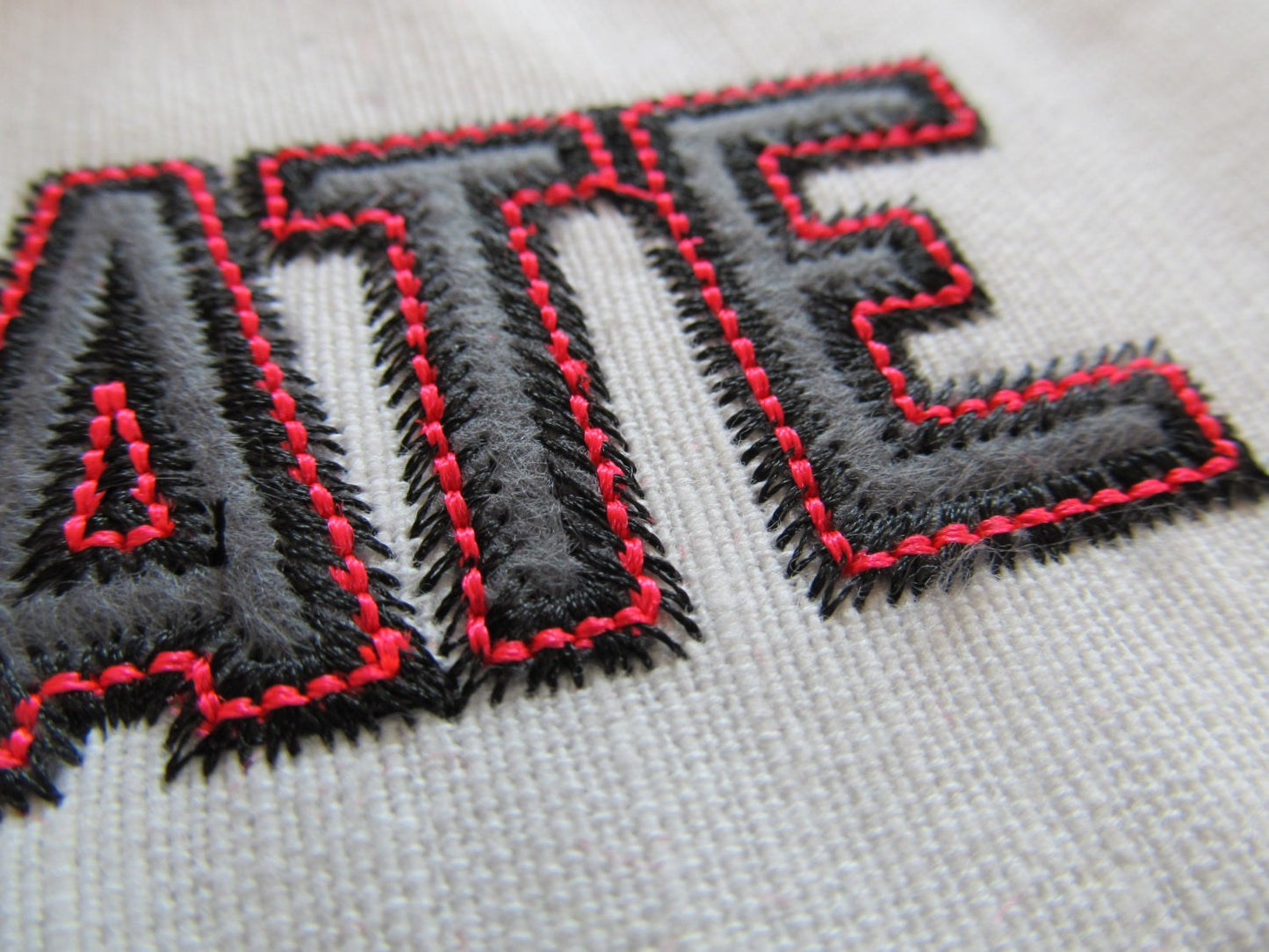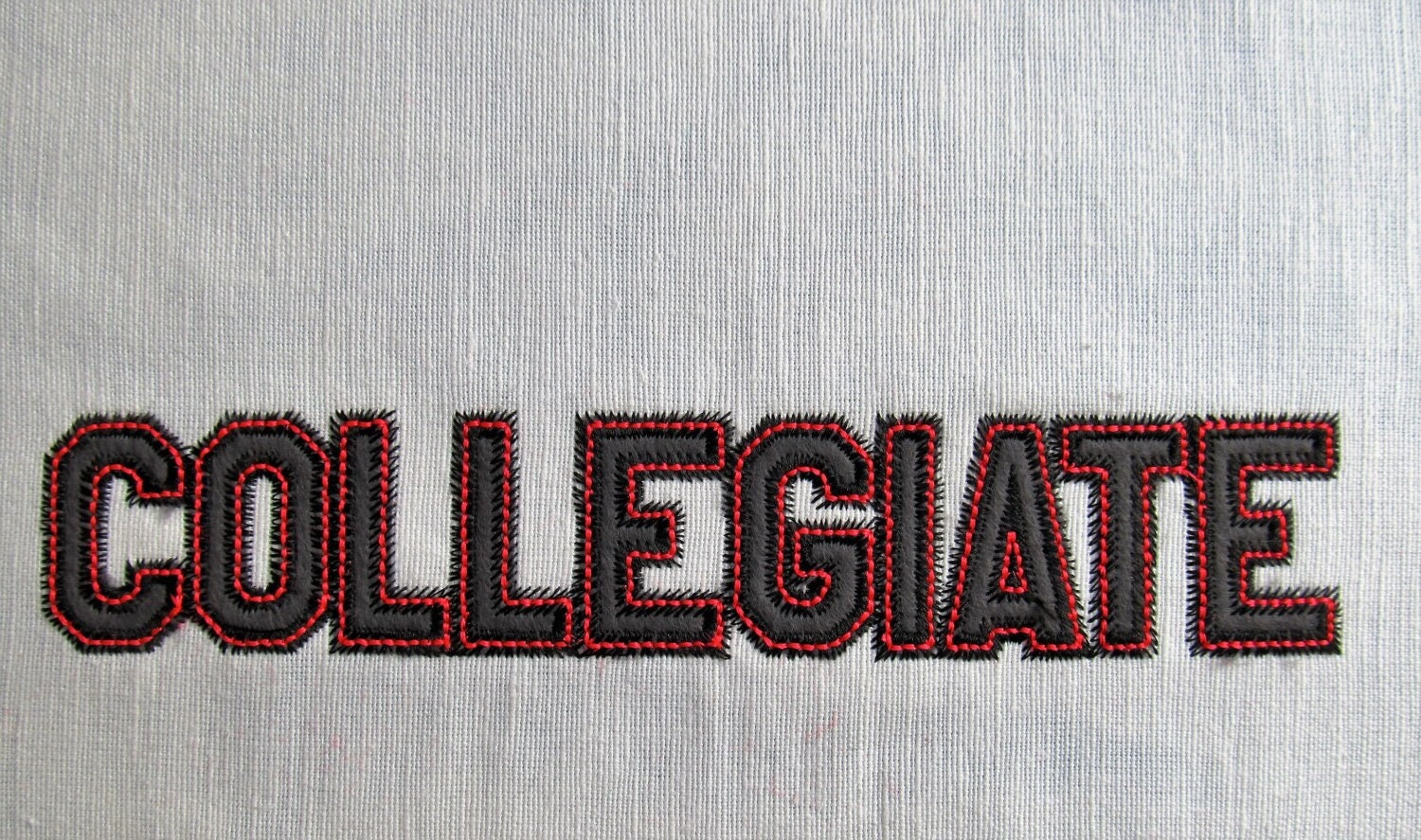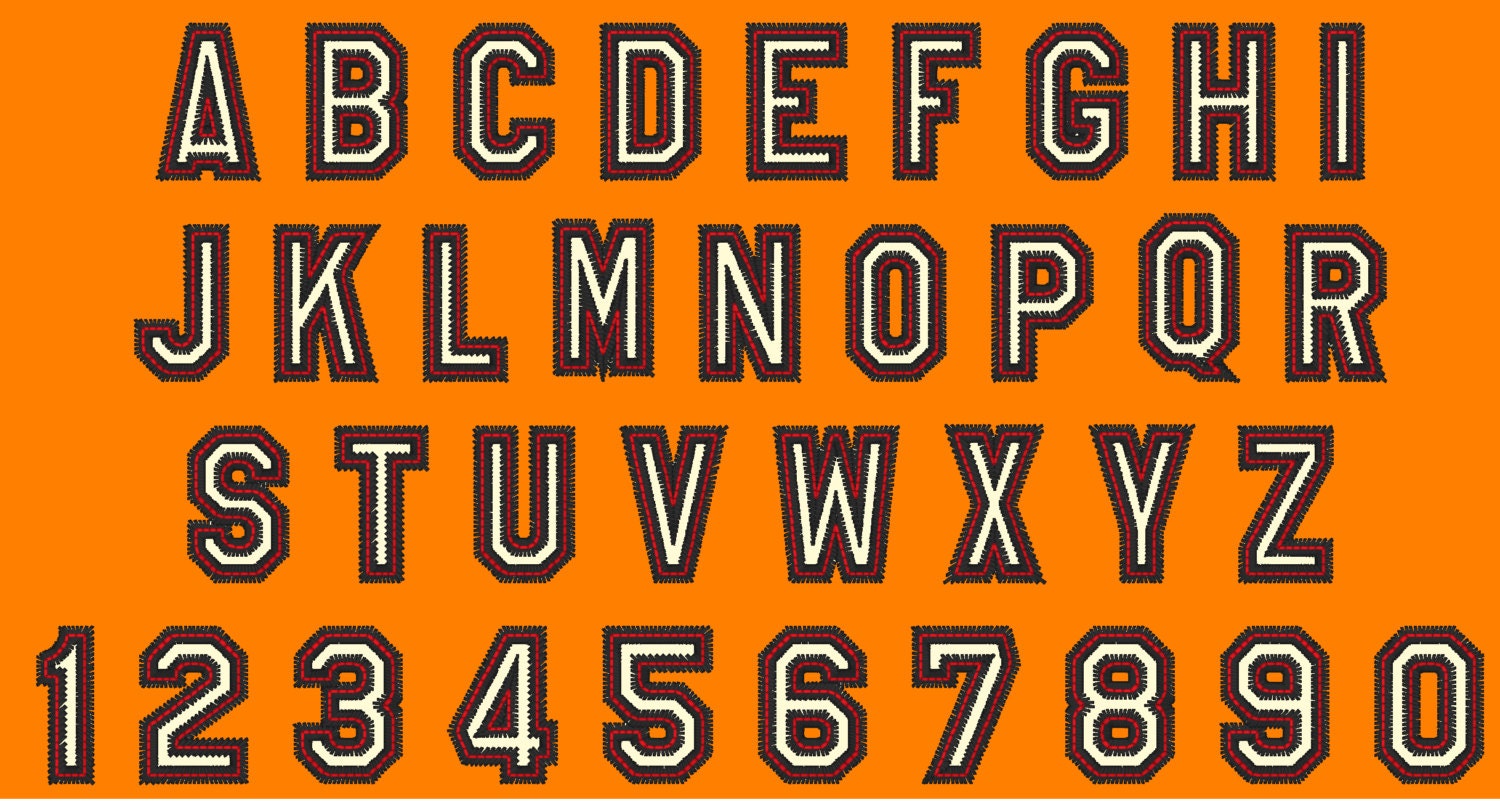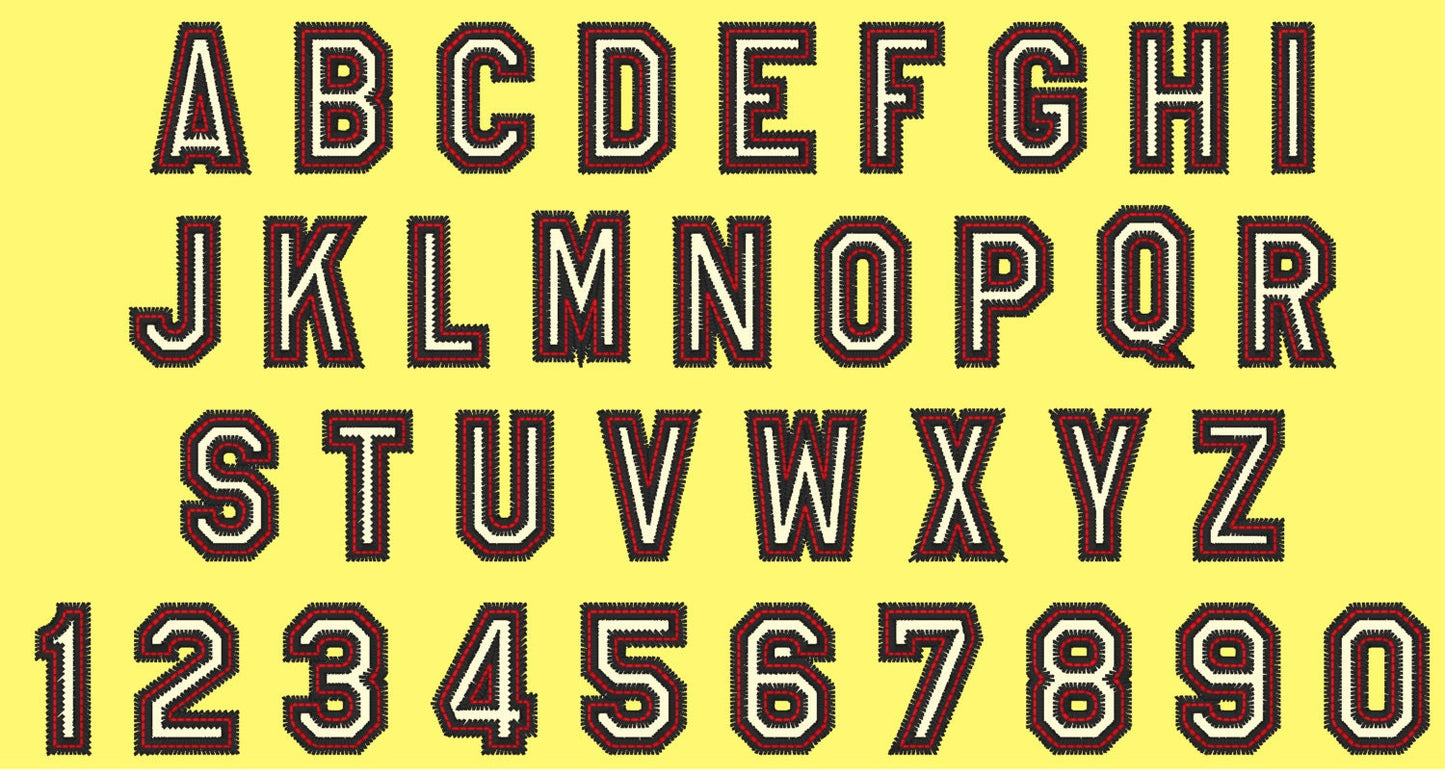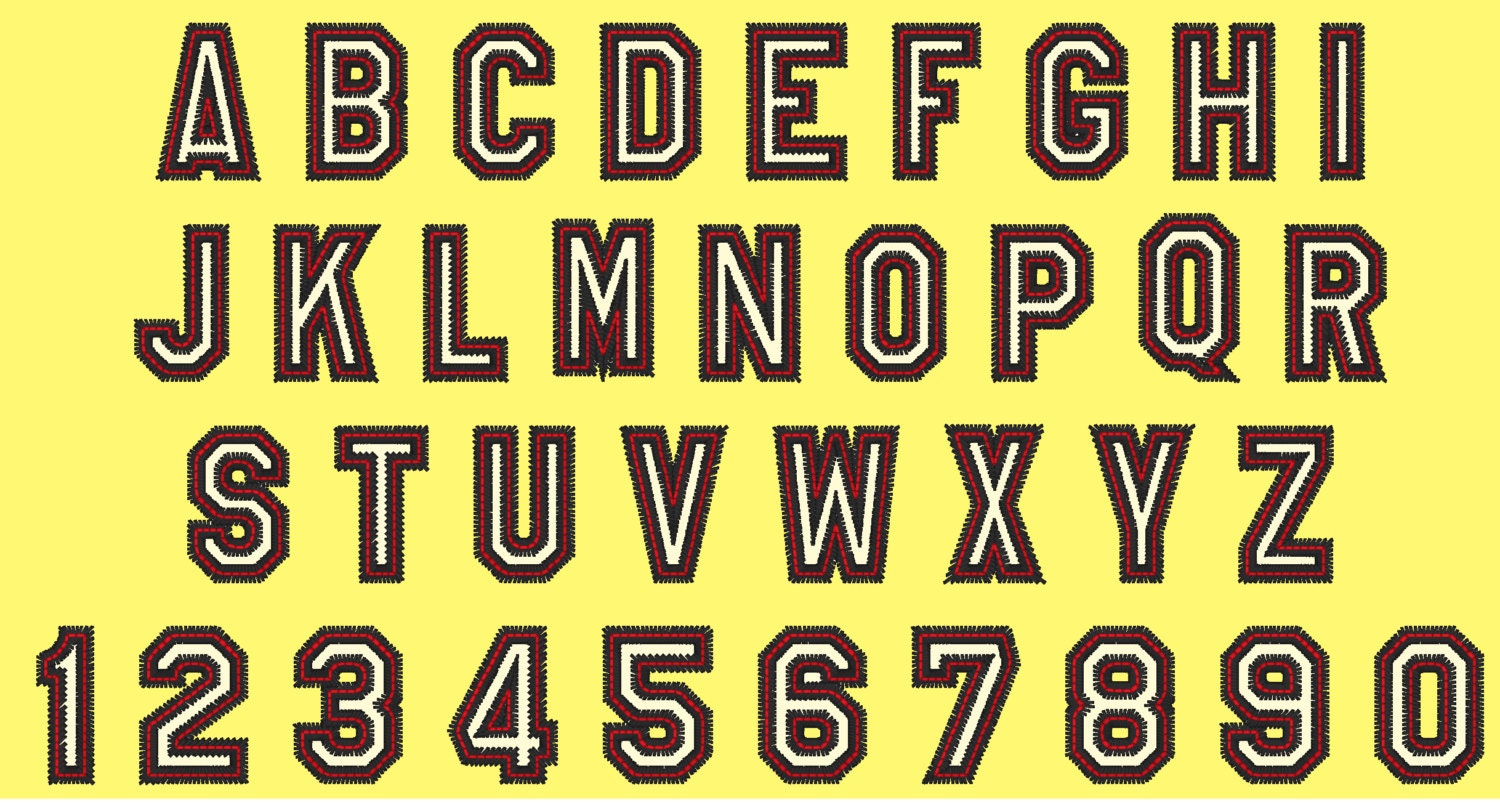
Or click to open the linkZig Zag applique Font Athletic Sport High School Team Players font alphabet machine embroidery designs in mini sizes, monogram
Whole alphabet - capital letters and numbers.
Has a wide nice zig-zag stitch outline, and contrast color top bean stitch for a neat look.